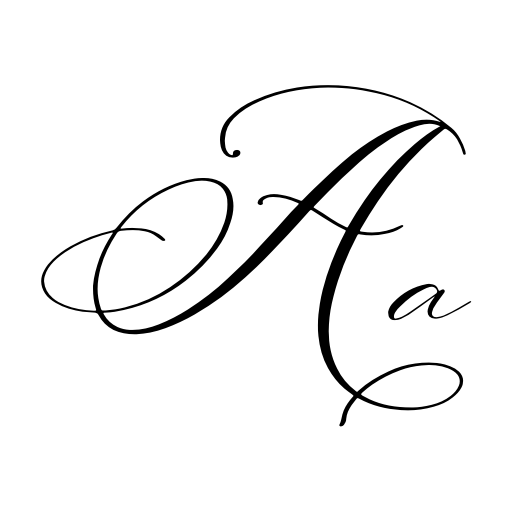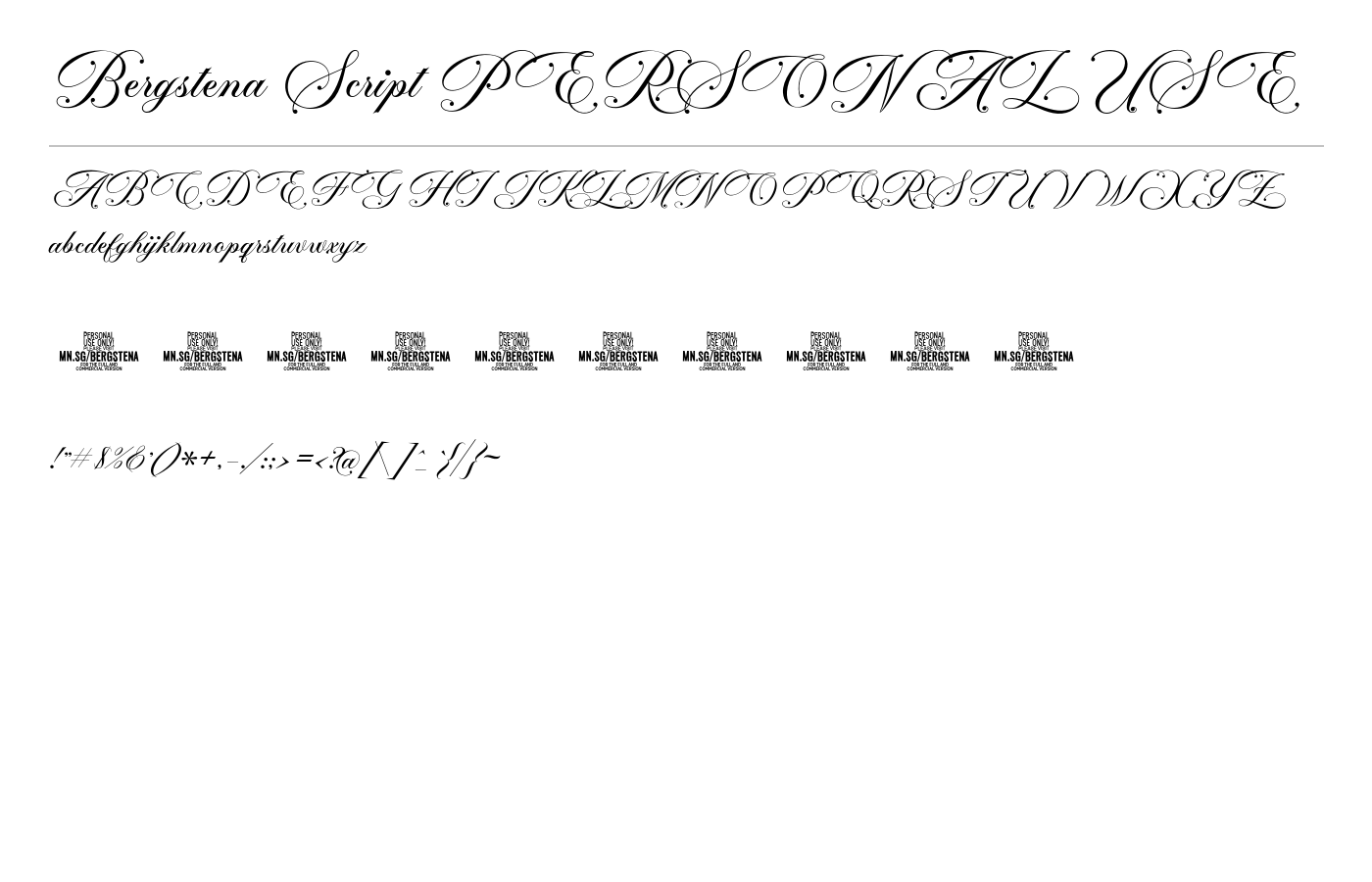
Bergstena Script is an elegant and delicate script font characterized by its flowing, fine strokes and intricate swashes that create a graceful, sophisticated look. It features high contrast between thick and thin lines with a classic calligraphic feel, ideal for luxury branding, formal invitations, and stylish editorial uses where a refined, romantic mood is desired. Its ornate letterforms and graceful curves make it perfect for headlines and decorative accents rather than body text.